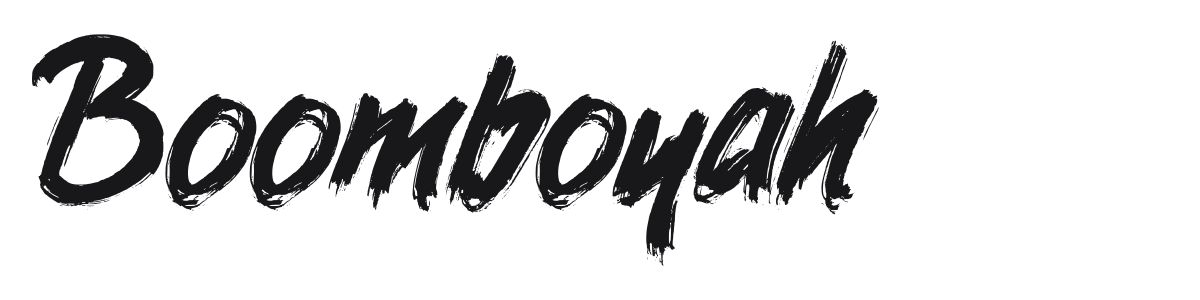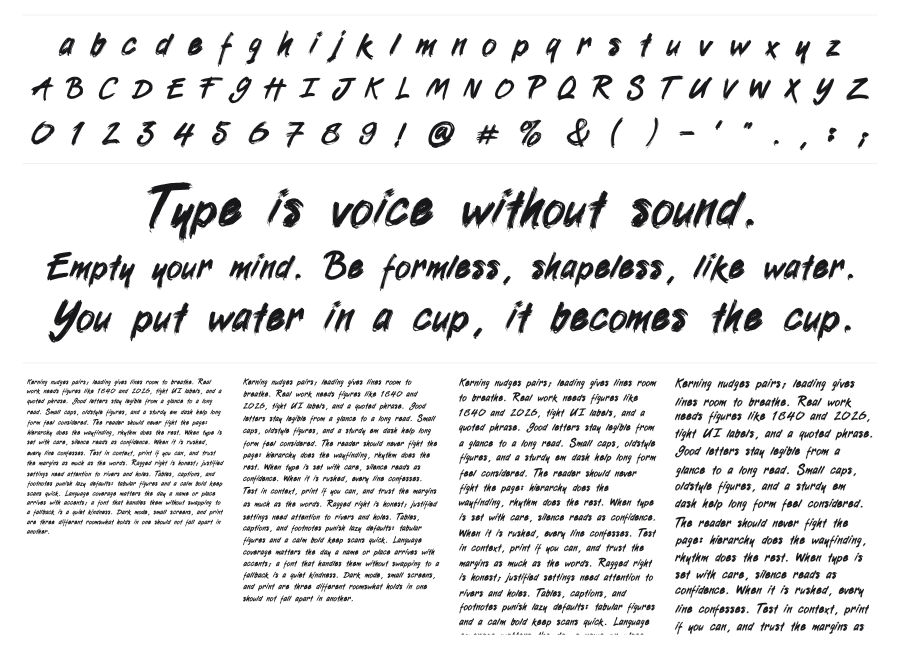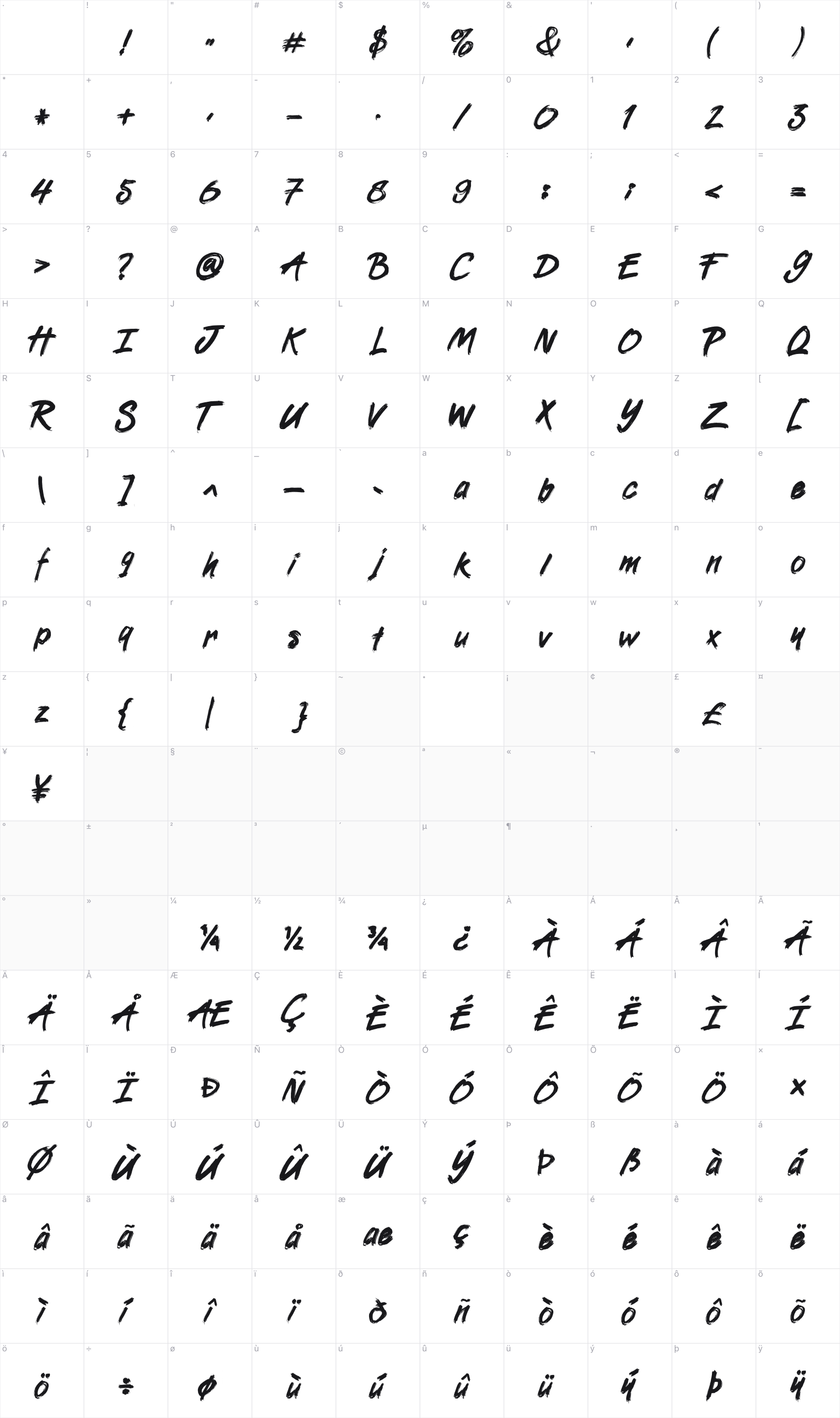
Boomboyah
Boomboyah is a raw, ink-splattered brush script with the energy of fast, spontaneous mark-making. Heavy downstrokes fray at their edges and hairline connectors stretch between letters with a loose, almost reckless confidence. The result sits comfortably in street culture, music branding, and anywhere a design needs to feel genuinely unpolished.